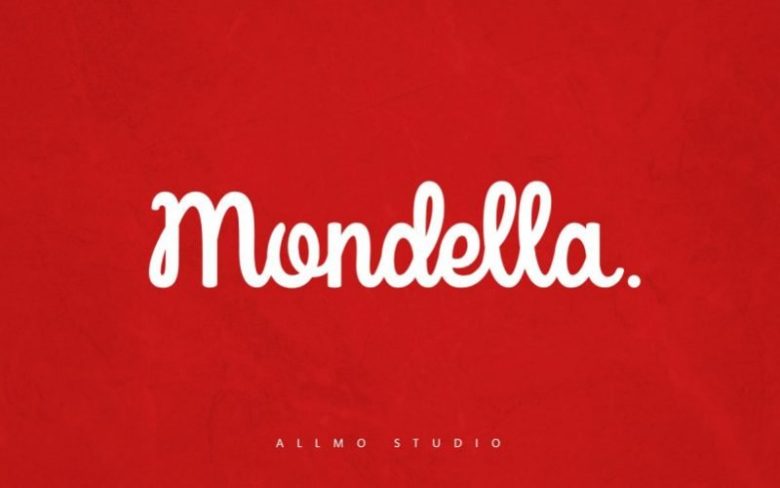
Mondella Script Font
Thanks for download. Introducing our latest creation, Mondella Font with two choices uppercase for good combination. Perfect for branding, 2 different style that allow you to make a great custom combination of lettering designs. These fonts are included with some features such like alternates, and ligatures to give you more option and accessible in Adobe Photoshop, Illustrator, CorelDraw, etc.